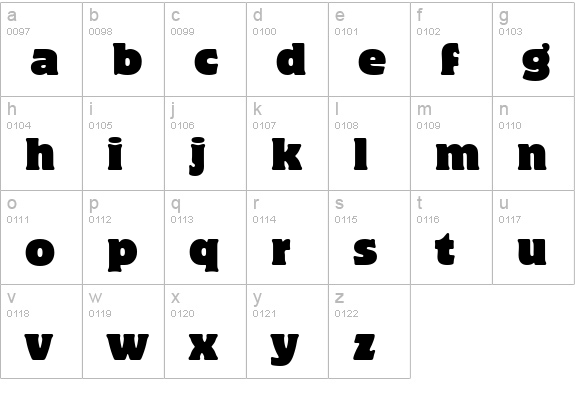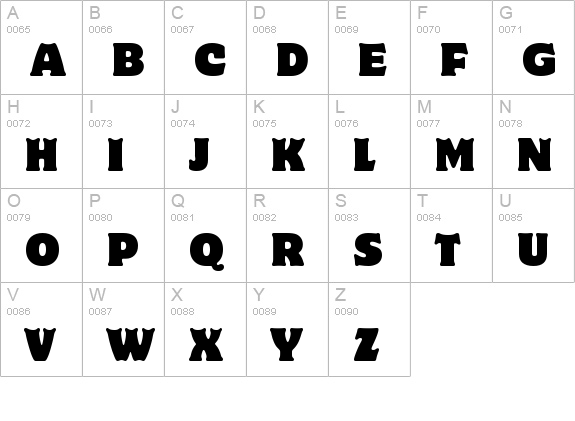
Motter Corpus ICG is a versatile and modern font that exudes sophistication and elegance. With its clean lines and unique letterforms, this font is perfect for a wide range of design projects, from branding to editorial layouts. The balanced contrast between thick and thin strokes gives Motter Corpus ICG a sense of dynamism and style that is sure to make your text stand out. One of the best things about Motter Corpus ICG is that it is available for free download at FontsMarket.com. This means that you can easily access this high-quality font without any cost, making it a great option for designers on a budget. Whether you're working on a personal project or a professional assignment, Motter Corpus ICG is a fantastic choice that will add a touch of sophistication to your work. Download it today and elevate your designs with this elegant and versatile font.